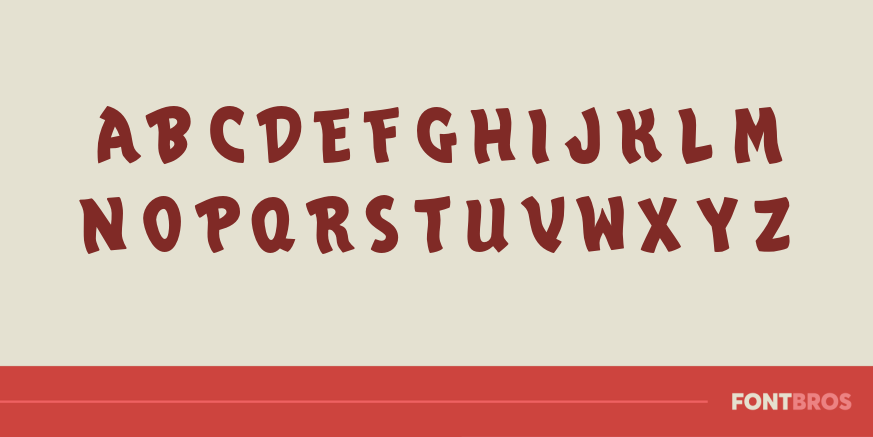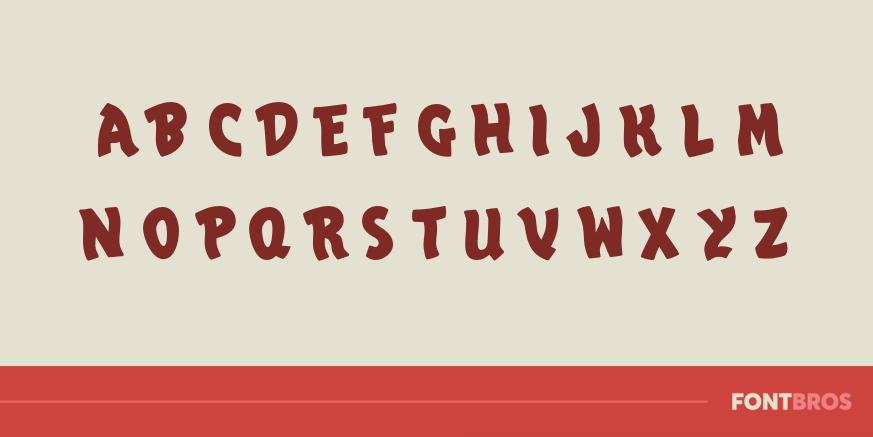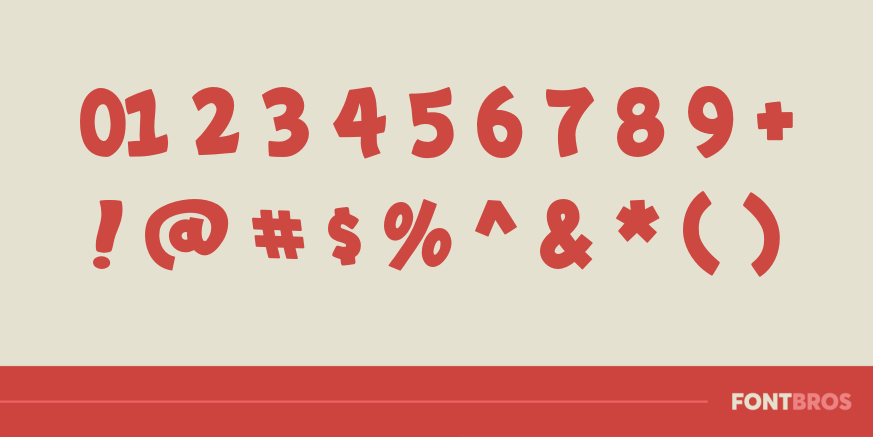
Vegas Caravan
Font Family by Font Diner
The Las Vegas desert is full of nomads down to their last casino chip on camel back wandering the desert for lost treasure hoping one day to return!